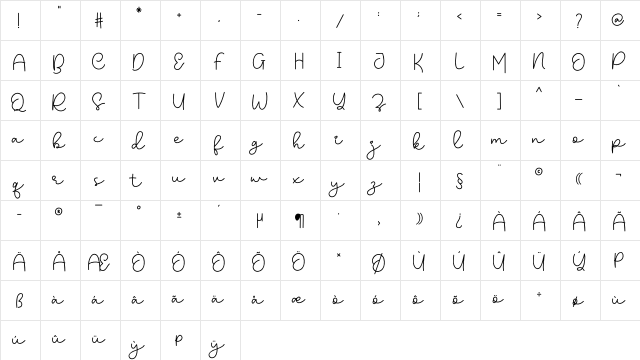
Winterfun Regular
Design Context for Winterfun Typeface
Winterfun has an approachable, lighthearted character — its loose, expressive forms are well-suited to children's content, casual branding, and fun-first design.
Well-suited to food and beverage brands with personality, educational materials, and fun-forward identities.
Font Pairing: Pairs well with a rounded or humanist sans for body copy, maintaining the friendly tone without relying on Winterfun to carry extended reading.
Pro Tip: Use Winterfun at larger display sizes where its expressive character can land. Pair with a clean, simple sans for body copy to maintain readability.